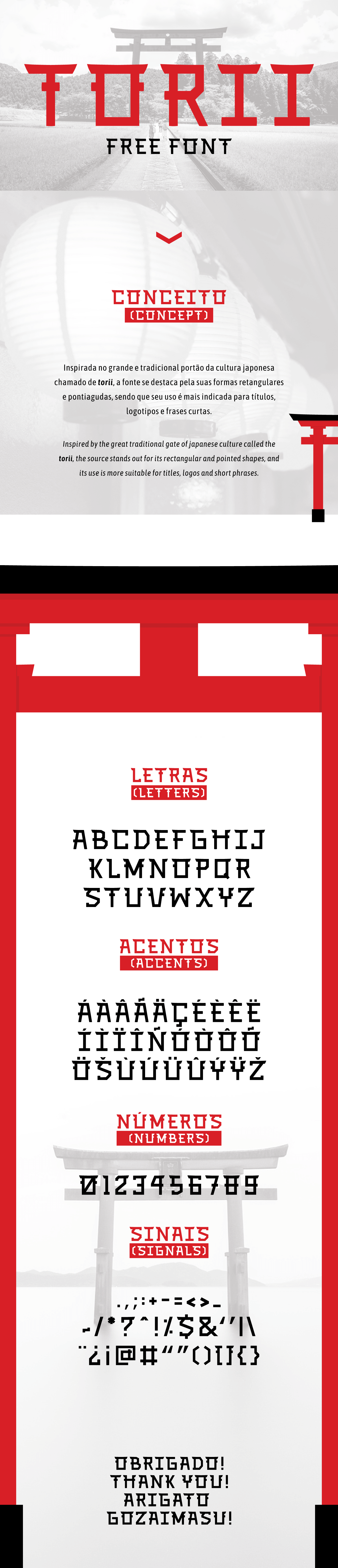
Created by Andrei Assisn, TORII Font was inspired by the great traditional gate of Japanese culture called the torii. The function of a torii is to mark the entrance to a sacred space. Use virtuously this font in titles, logos and short phrases. Free for personal and commercial work!